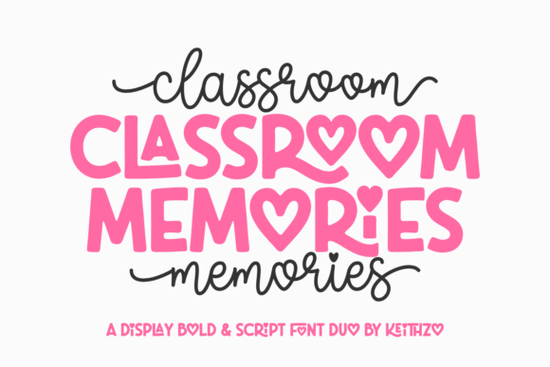
If you've ever wanted your designs to feel like a handwritten note from someone who genuinely cares, the Classroom Memories font might be exactly what you're looking for. This handwritten typeface brings a warm, nostalgic feel that works beautifully for school-themed projects, journaling layouts, and designs that need a personal, approachable touch. It's the kind of font that makes text feel less like a computer output and more like something written by hand at a kitchen table.
What Makes This Handwritten Font Different From Others?
Plenty of handwritten fonts look casual but fall apart when you try to use them in real projects. Classroom Memories is different because it keeps that organic, friendly letterform style while maintaining solid structure. The strokes are neat enough to stay readable at smaller sizes, yet playful enough to feel genuinely hand-drawn.
For designers who work across multiple types of projects from blog graphics to product packaging this kind of balance matters. You get the warmth of handwriting without the messiness that often comes with it.
Who Is This Font Best Suited For?
Classroom Memories works well for a surprisingly wide range of creative work:
- Print-on-demand sellers designing t-shirts, mugs, or tote bags with a cozy, handmade vibe
- Teachers and educators creating classroom posters, bulletin boards, or worksheet headers
- Scrapbookers and journalers who want typography that feels personal and authentic
- Small business owners building a brand identity that feels approachable and genuine
- Social media creators looking for text that stands out from standard sans-serif fonts
If your audience connects with warmth and authenticity, a font like this can make a noticeable difference in how your designs are received.
How Does It Compare to Other Playful and Handwritten Fonts?
Creative Fabrica has a solid collection of display and handwritten typefaces, and choosing between them really depends on the mood you're going for. If your project needs a retro athletic energy, fonts with a vintage sports aesthetic deliver that bold, letterman-jacket look. For something more youthful and decorative, fonts inspired by sticker art bring a fun, colorful personality that kids and teens love.
When you need that childlike, crayon-on-paper energy, crayon-style fonts are hard to beat they're great for kids' party invitations or educational materials. For projects that call for a chunkier, bolder handwritten look, fonts with a rounded, playful weight give your text more visual impact. And if you prefer something cleaner and more minimal, a simple hand-lettered option keeps things understated.
Classroom Memories sits comfortably in the middle it's warm but not childish, casual but not sloppy. That makes it a strong all-rounder for designers who need versatility across different types of projects.
What Kinds of Projects Work Best With It?
Here are a few specific ideas where this font really shines:
- Greeting cards and invitations especially for school events, reunions, or family gatherings
- Blog headers and Pinterest graphics where you want a friendly, approachable tone
- Planner stickers and printable inserts for the planning and journaling community
- Etsy shop branding headers, thank-you cards, and packaging design
- Children's book layouts or educational worksheets that need a bit of personality
The organic stroke quality also makes it a solid choice for print designs, since the natural imperfections give it a handcrafted look that purely digital fonts often struggle to replicate.
Does It Pair Well With Other Typefaces?
One of the best things about handwritten fonts is how nicely they combine with cleaner typefaces. Try pairing Classroom Memories with a light sans-serif for body text. This keeps your layouts readable while letting the handwritten font carry the personality in headings and accents.
You could also mix it with a bold display font for contrast. Using a strong display typeface for your main headline and Classroom Memories for subheadings or taglines creates a nice layered effect that feels balanced and intentional.
Is It Worth Adding to Your Font Collection?
If you regularly design projects that need a heartfelt, hand-drawn feel, then yes this font earns its spot. It's especially useful if you work across multiple niches like education, small business, print-on-demand, or crafting, because it adapts well without looking out of place.